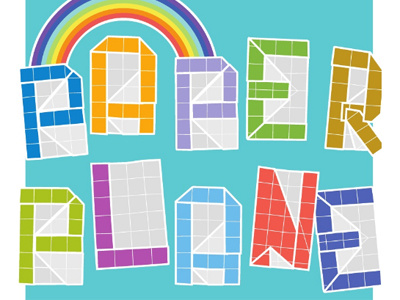
Origami Typeface - Paper Plane
This is part of a cover of a children book project. I first folded the origami alphabets, photography them, and traced it in Illustrator.